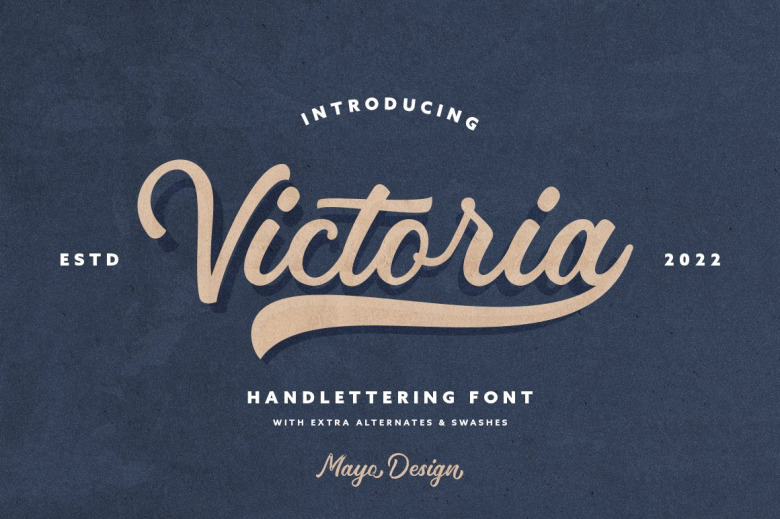
Victoria Font
Victoria, a calligraphy script font with open type features, is available on Its 74 pages give you information on many aspects of setting up and maintaining an aqua scape.
Victoria Calligraphy Script Font